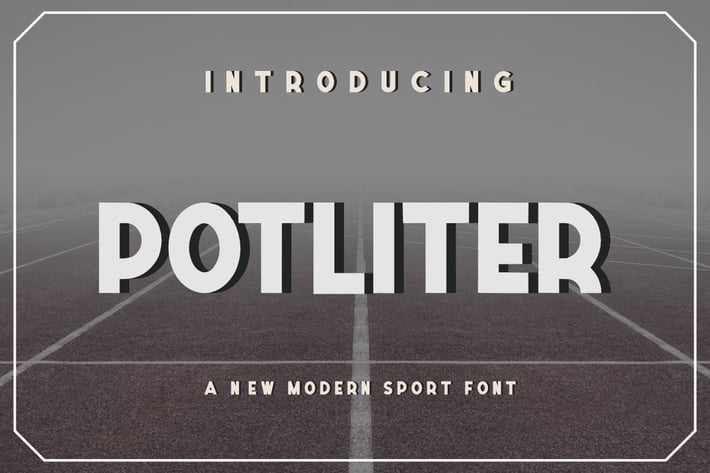
POTLITER Modern Sport Font
POTLITER Modern Sport Font, This font is made with a high premium quality level which you can use as flyers, quotes, posters, banners, packaging, merchandise, logotypes and much more.